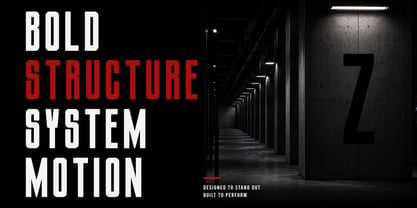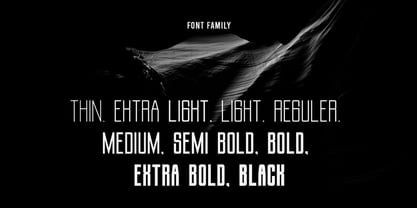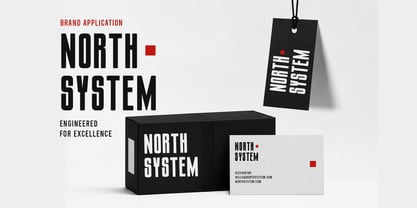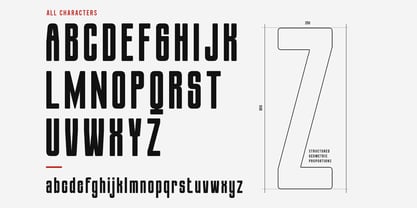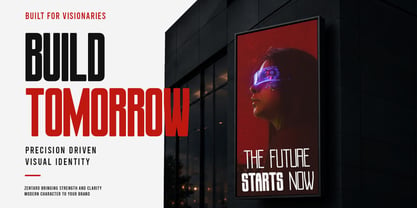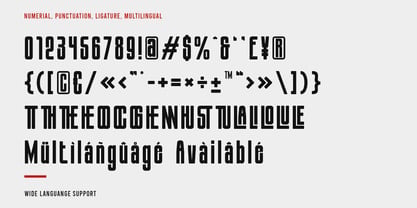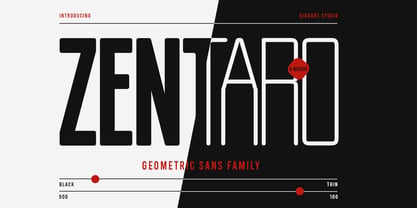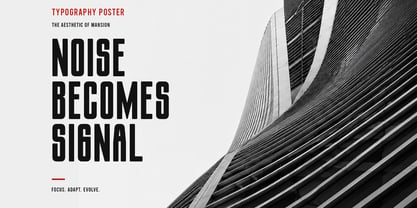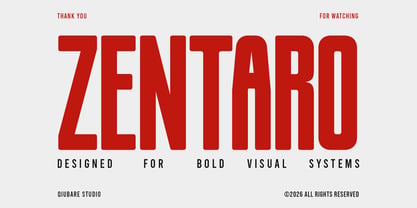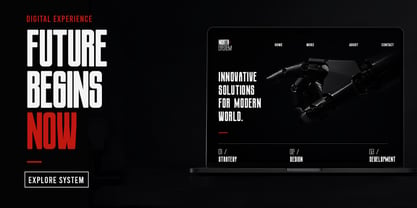
Zentaro is a bold and modern geometric condensed sans serif font family, meticulously crafted for designers who demand precision, impact, and a strong visual identity. With a clean structural approach and contemporary proportions, Zentaro seamlessly combines minimalism, power, and versatility into one cohesive type system. From sleek branding to futuristic editorial layouts, Zentaro delivers an unmistakable presence with exceptional readability. Engineered to excel in both large-scale headlines and refined visual systems, this font family infuses confidence and sophistication into any creative project. Featuring 9 carefully crafted weights, Zentaro offers maximum flexibility — from elegant thin styles to ultra-bold statements — making it ideal for premium branding and high-impact typography.
**Perfect For:**
- Branding & Visual Identity
- Luxury & Fashion Branding
- Corporate Design
- Editorial & Magazine Layouts
- Posters & Headlines
- Packaging Design
- Logo Design
- Web & UI Design
- Technology & Startup Branding
- Social Media Graphics
- Advertising Campaigns
- Sports & Automotive Visuals
**What Makes Zentaro Special?**
✓ Strong geometric construction
✓ Modern condensed proportions
✓ Clean and professional appearance
✓ High-impact headline performance
✓ Minimal yet powerful personality
✓ Versatile for premium and commercial projects
✓ Excellent readability in display sizes
✓ Multilingual support
✓ Numerals & punctuation included
✓ Ligatures support
**Language Support:**
English, Western European, Central European, and multilingual characters support.
Zentaro is designed to create bold visual systems, confident branding, and unforgettable typography.